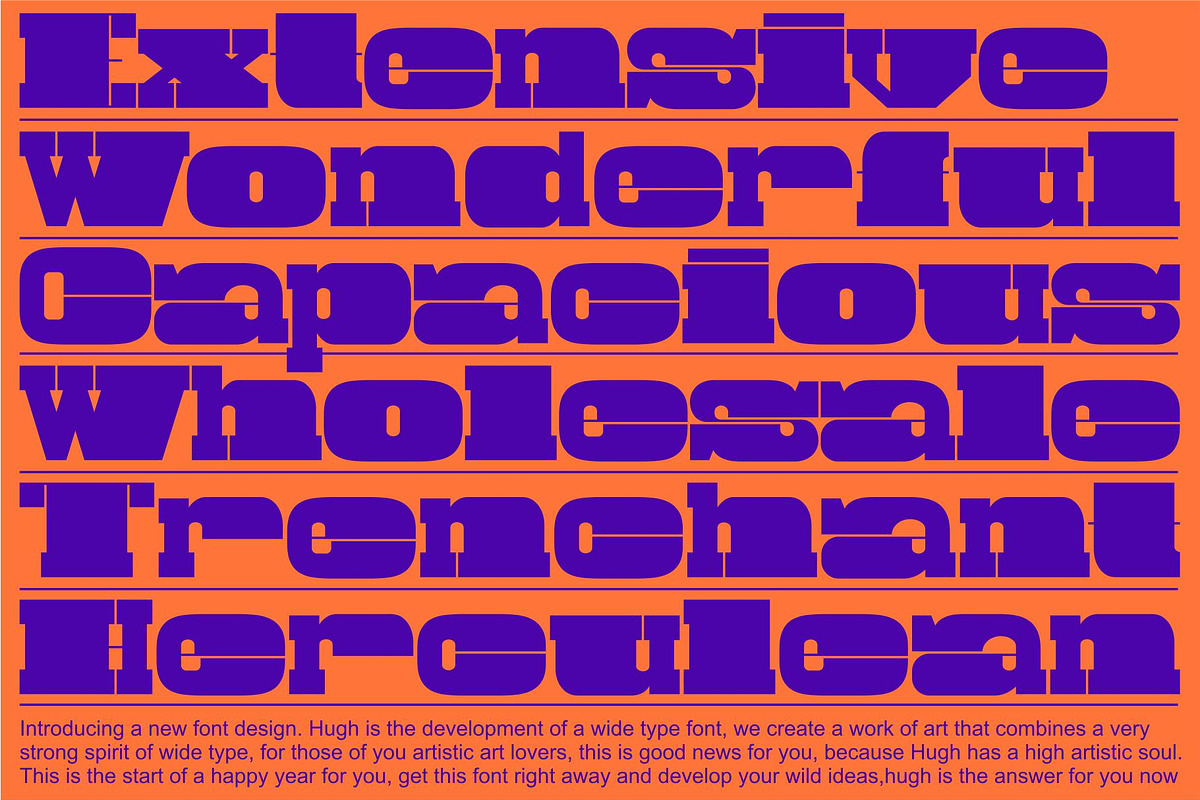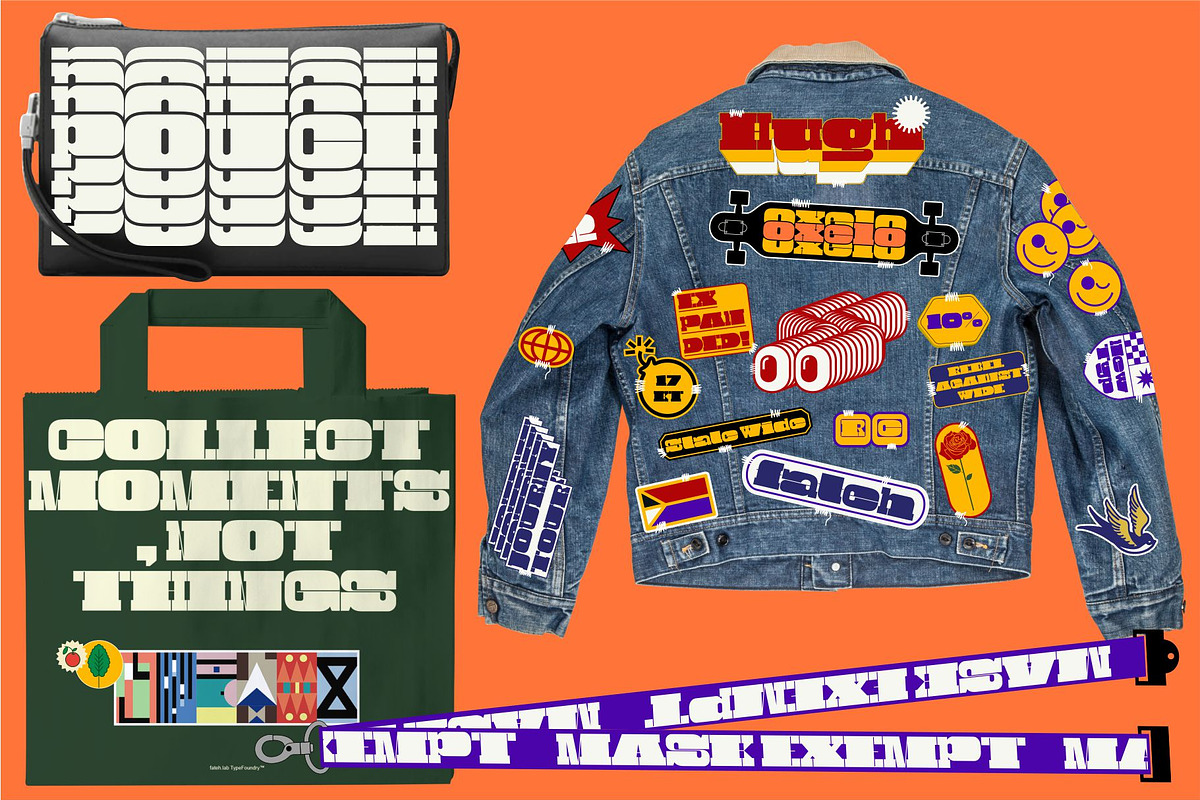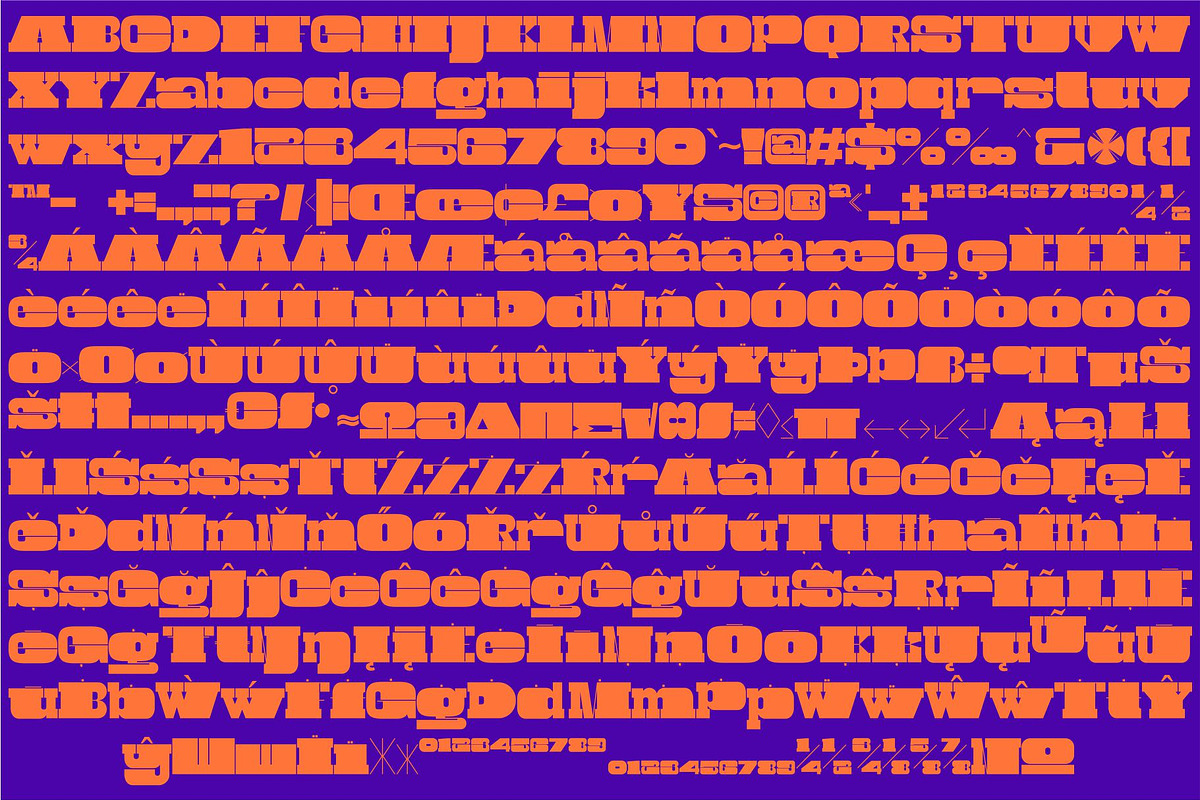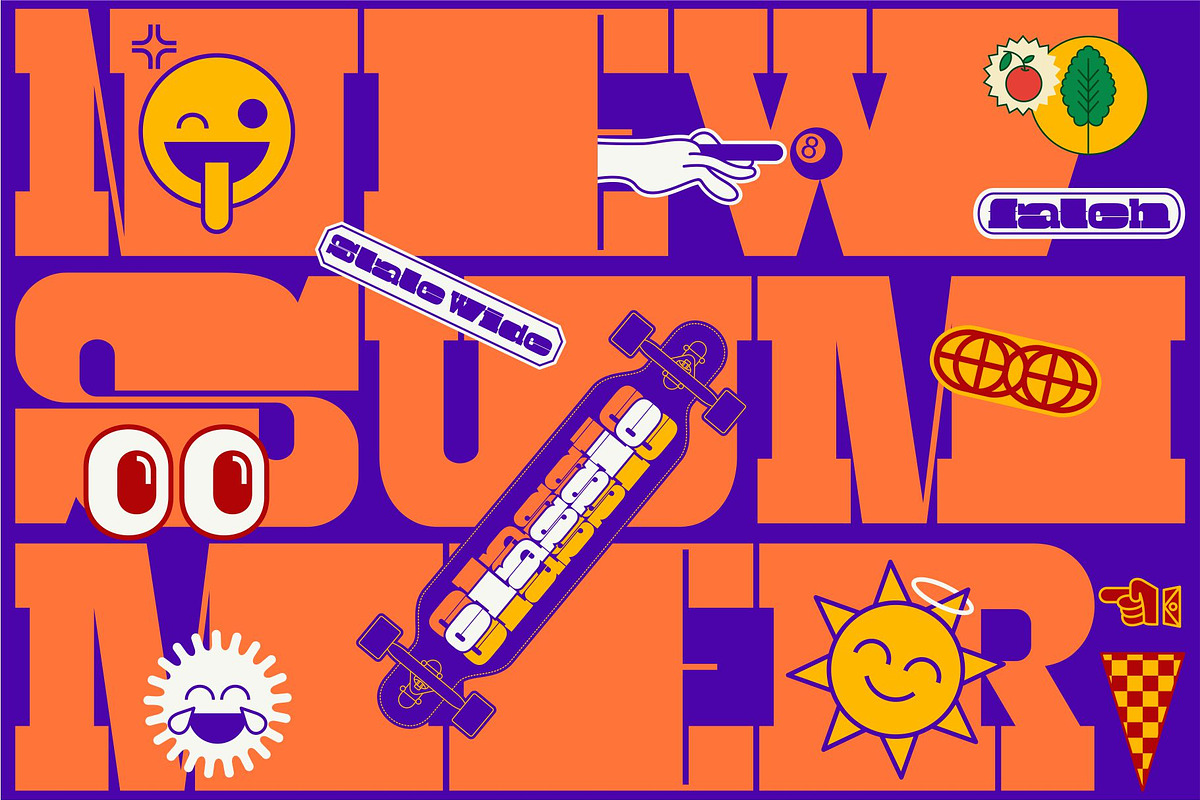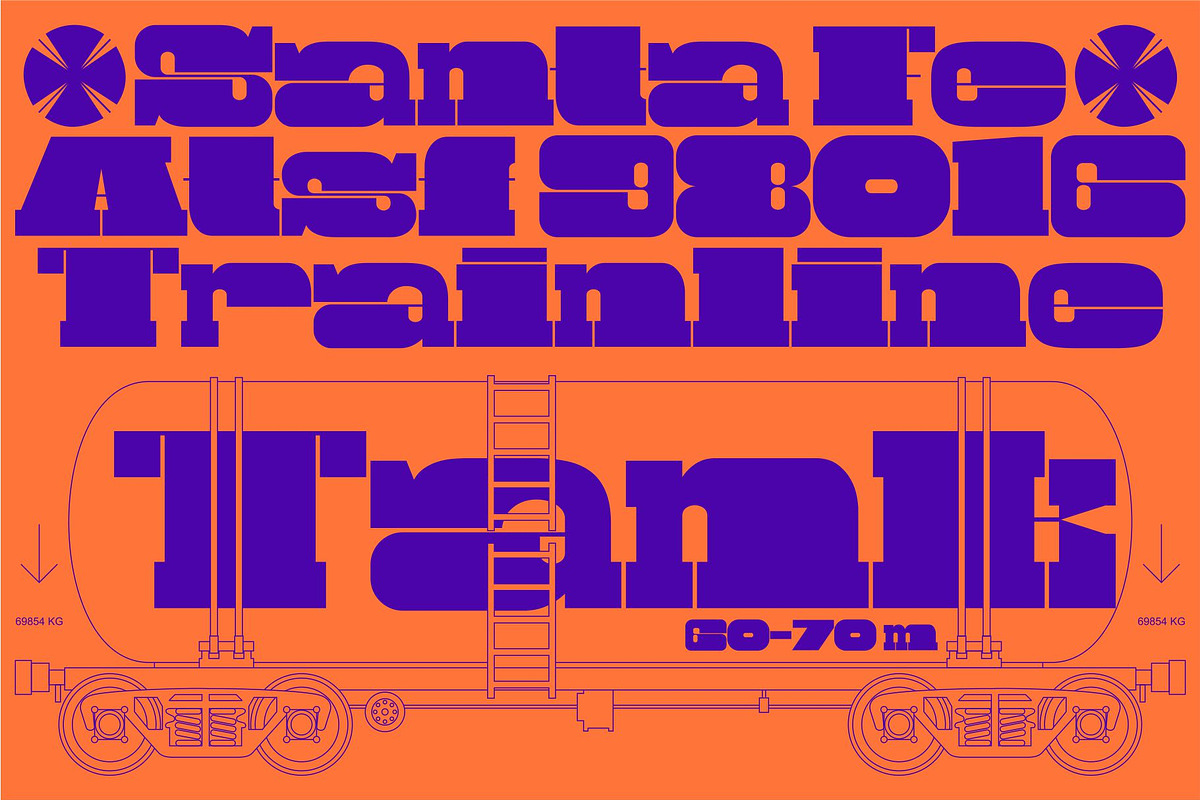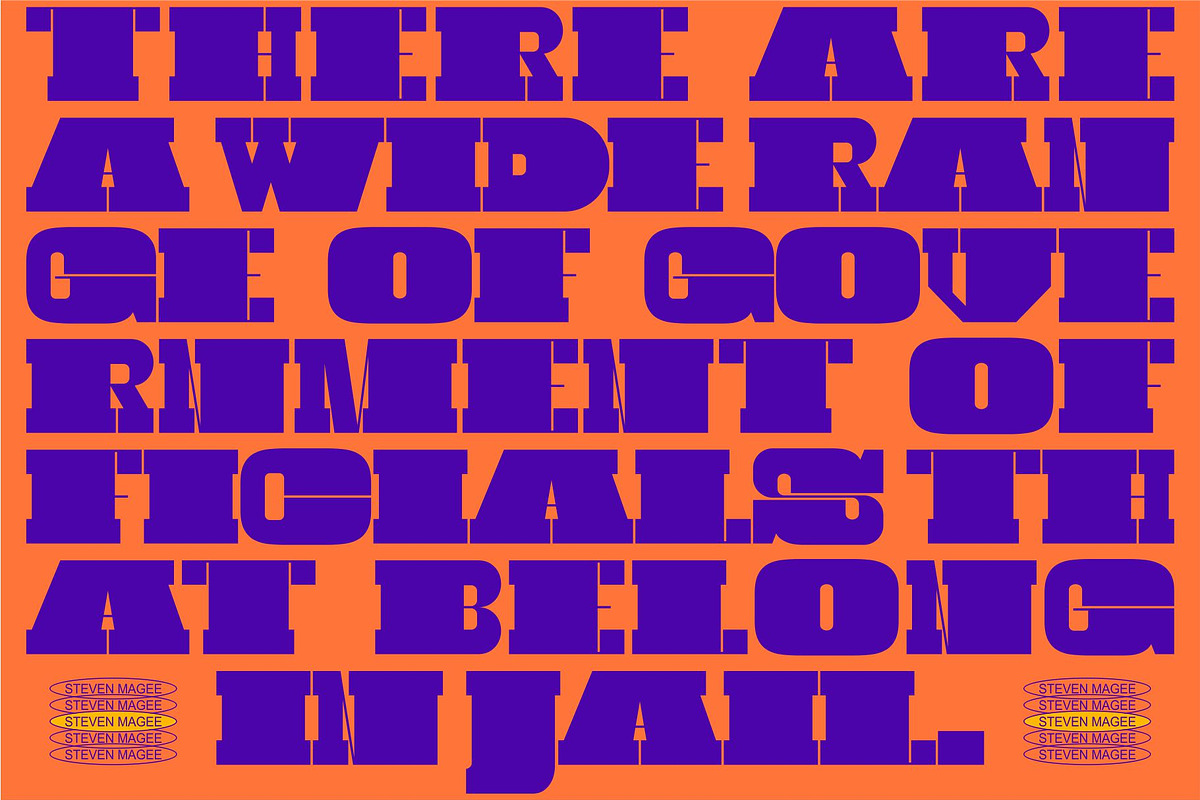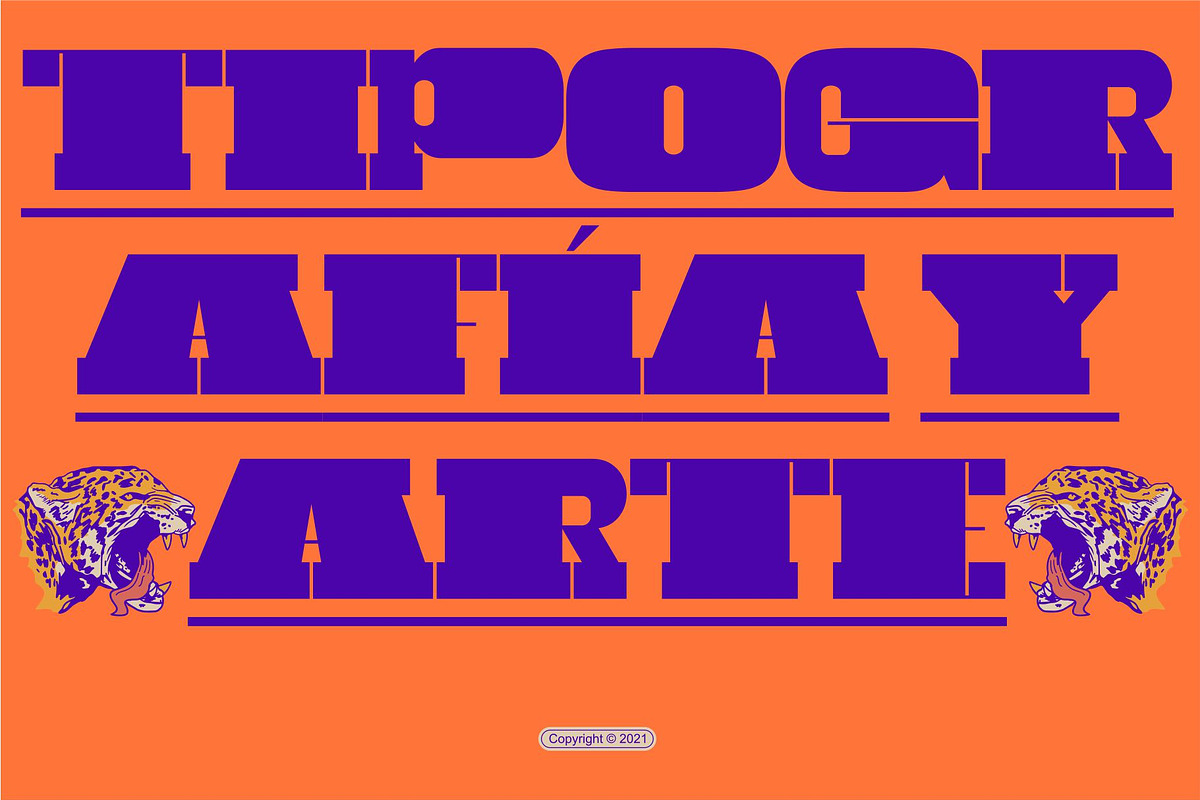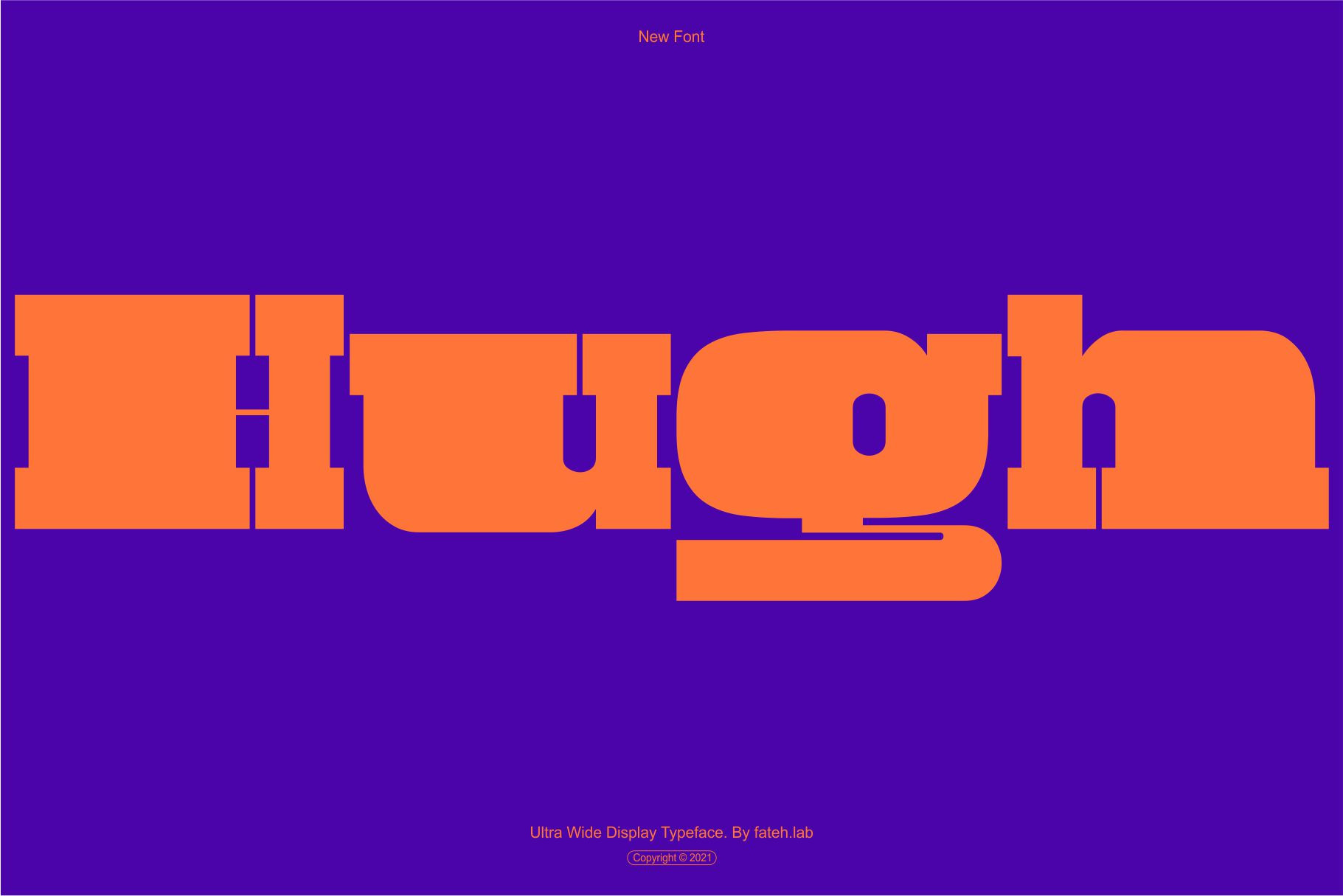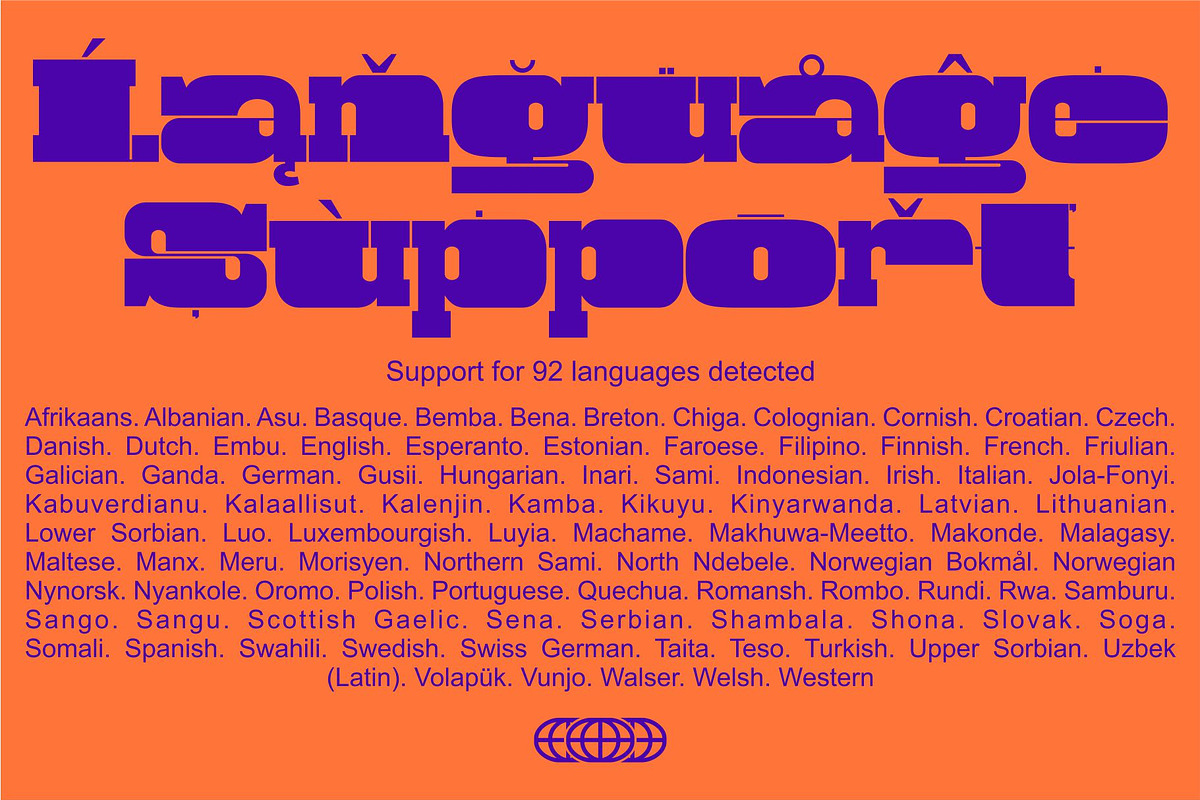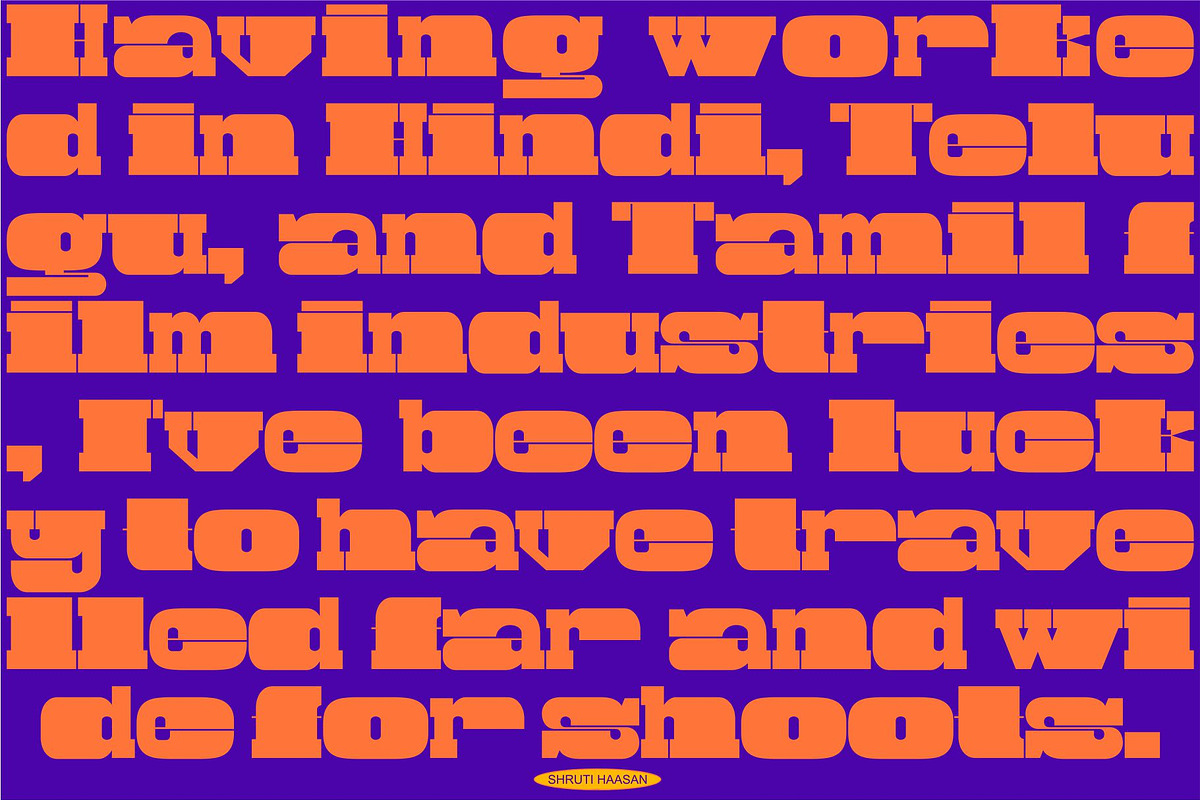
Hugh - Ultra Wide Typeface
Hugh is the development of a wide type font, we create a work of art that combines a very strong spirit of wide type, for those of you artistic art lovers, this good news for you, because Hugh has a high artistic soul. This is the start of a happy year for you, get this font right away and develop your wild ideas, Hugh is the answer for you now.
Its weight is superior in posters, social media, headlines, titles, large format print - and wherever you want to be noticed.